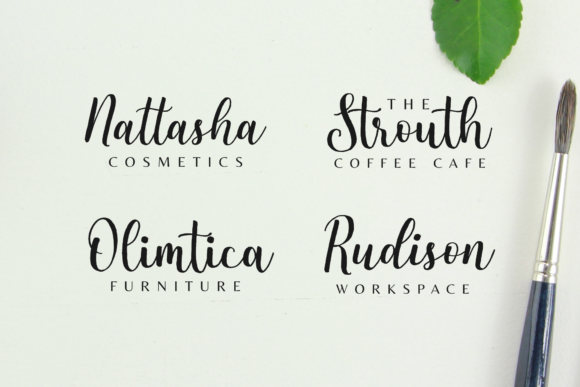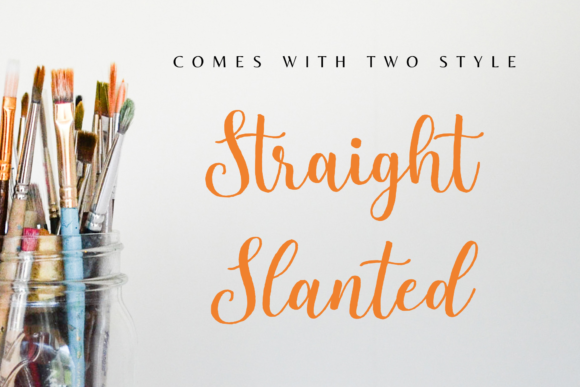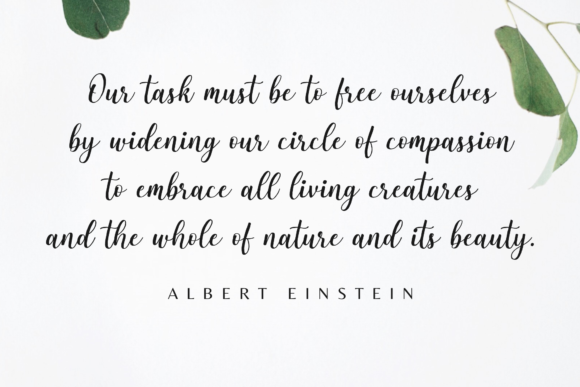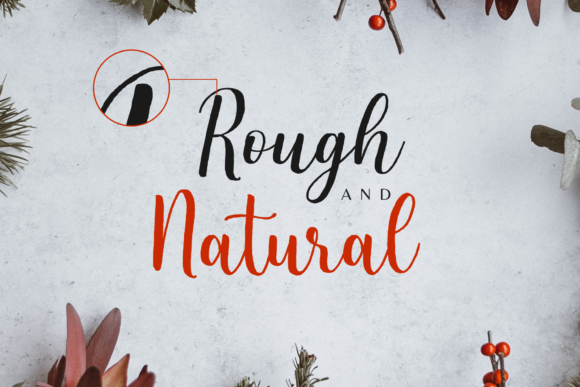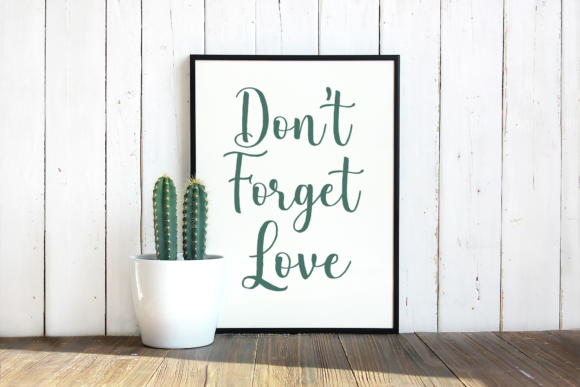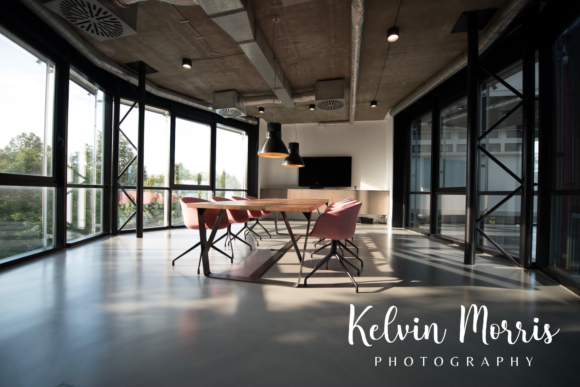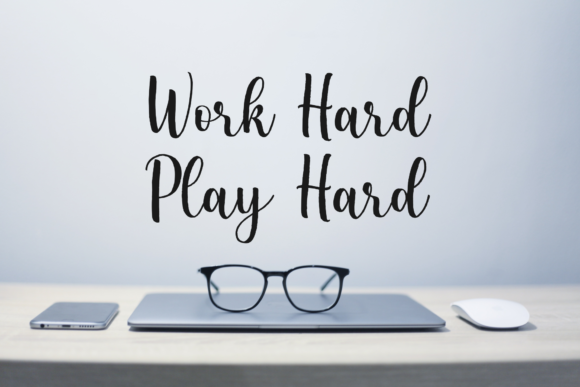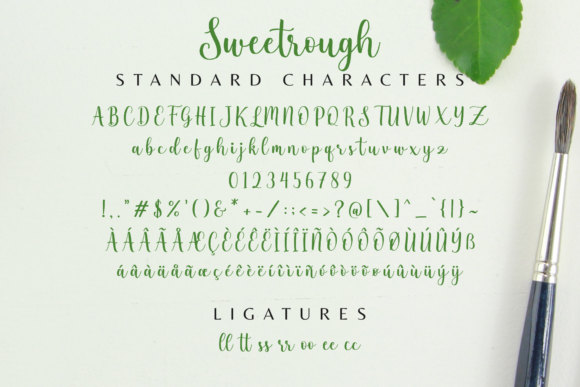
Sweetrough Font
About Sweetrough Font
Sweetrough is a bold and casual script with natural lettering and an authentic vibe. Get inspired by its unique style.